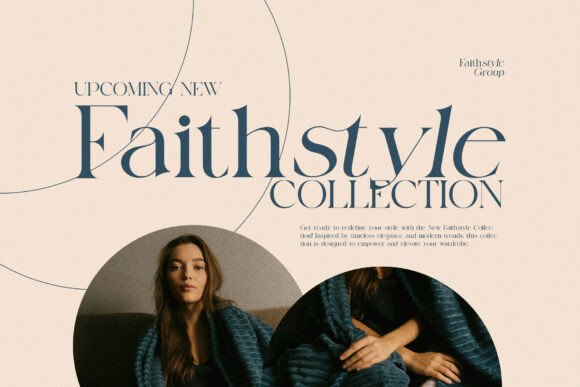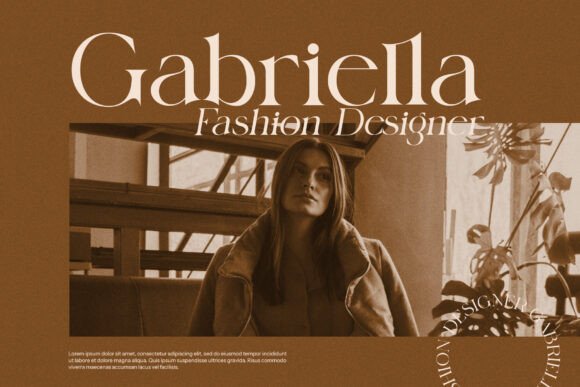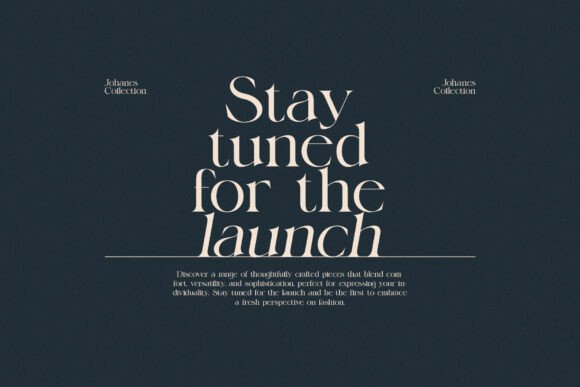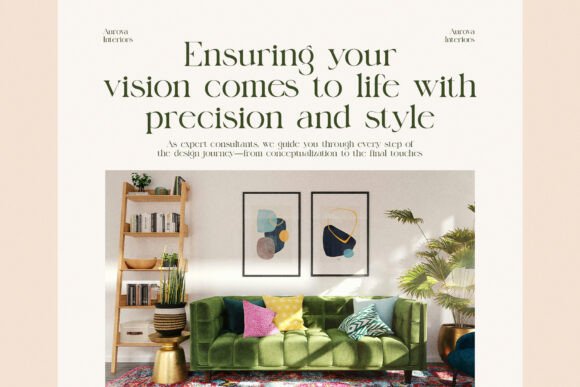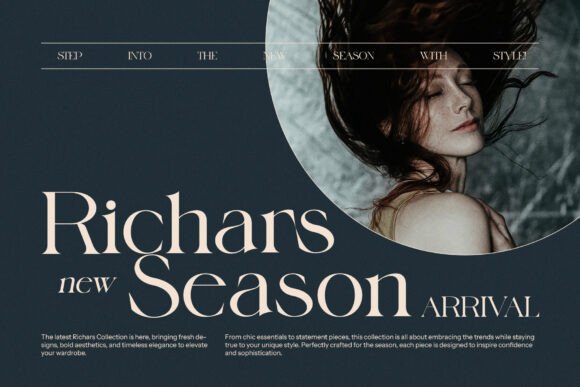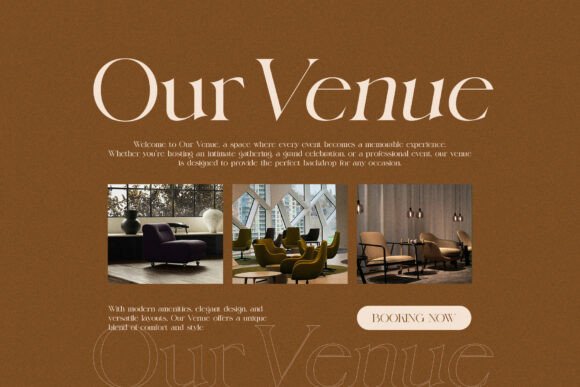
The Power of Typography: How Gagies Modern Serif Font Elevates Your Designs
I’ll never forget the struggle of working on a high-stakes branding project for a luxury boutique client. The goal was to create a sophisticated and elegant visual identity that would appeal to their upscale audience. However, no matter how hard I tried, the fonts I chose just didn’t seem to capture the essence of the brand. That was until I stumbled upon Gagies Modern Serif Font. This striking typeface not only met but exceeded my expectations, bringing a level of refinement and modernity that perfectly aligned with my client’s vision.
An Honest Review of Gagies Modern Serif Font
- ✨ Unique Ligatures: The way several letters seamlessly merge into one-of-a-kind shapes adds a creative and sophisticated touch to any design.
- ✅ Clean and Refined Serifs: The font’s sleek serifs bring a sense of elegance and modernity to any project.
- 💡 Versatility: From branding and logo design to websites, magazines, and advertisements, Gagies Modern Serif Font is perfect for a variety of applications.
- 👍 Easy to Read: Despite its elegant design, the font remains highly legible, making it perfect for body text and headlines.
While Gagies Modern Serif Font is an exceptional typeface, there are a few minor quirks to be aware of:
- ⚠️ Occasional Kerning Issues: As with any font, you may encounter some kerning issues, especially when using the font at smaller sizes.
- 🤔 Learning Curve for OpenType Features: While the font’s OpenType features are incredibly powerful, they can take some time to get used to, especially for those new to typography.
A Practical Guide to Using Gagies Modern Serif Font
The Story Behind Gagies Modern Serif Font
Gagies Modern Serif Font was designed with the goal of creating a typeface that embodies the perfect balance of elegance and modernity. The designer, inspired by the works of classic typographers, sought to create a font that would be both refined and attention-grabbing. The result is a versatile typeface that can be used in a wide range of applications, from luxury branding to editorial design.
| Font Name | Gagies Font |
| Author | Perfectype |
| What makes Gagies Modern Serif Font unique? | Its unique ligatures, clean serifs, and stylistic alternates set it apart from other serif fonts. |
| Is Gagies suitable for body text? | Yes, Gagies Modern Serif Font is highly legible and suitable for body text, making it perfect for long-form content. |
| Does Gagies support OpenType features? | Yes, Gagies Modern Serif Font supports OpenType features, including ligatures, stylistic alternates, and glyphs. |